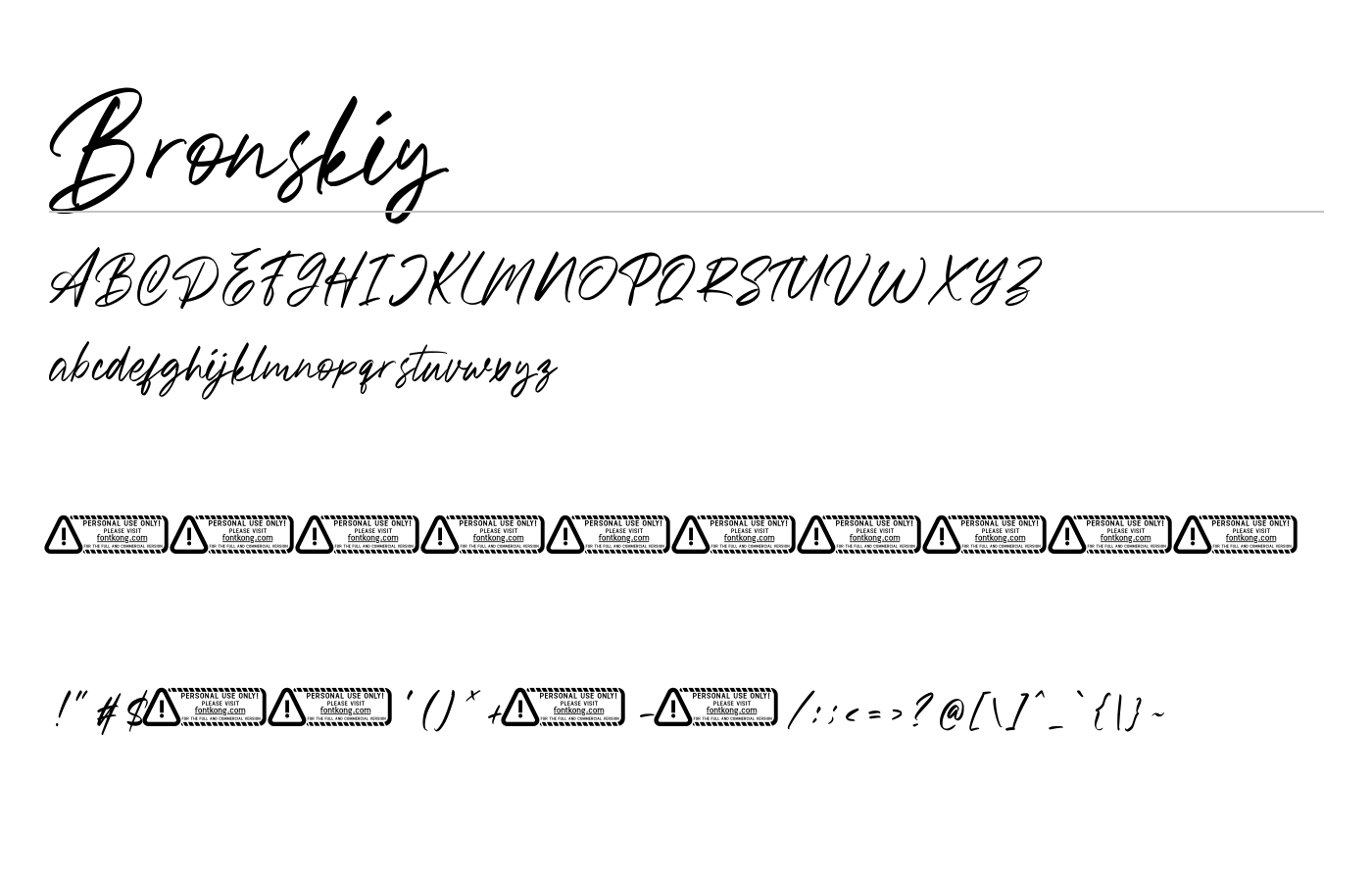
Bronskiy is a lively and elegant script font that mimics natural handwriting with its fluid, slightly slanted strokes and dynamic letterforms. Its light weight and moderate contrast give it a modern, approachable feel, making it ideal for branding, invitations, and social media where a personal yet stylish touch is desired. This font beautifully balances casual charm with sophistication, perfect for creative and fashion-forward designs.
Bronskiy Font
About Bronskiy Font